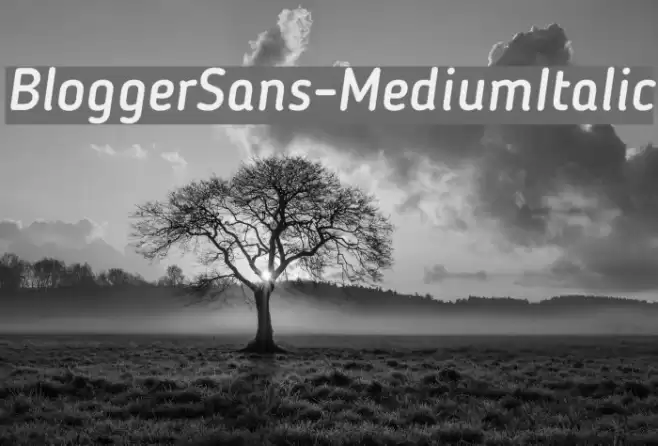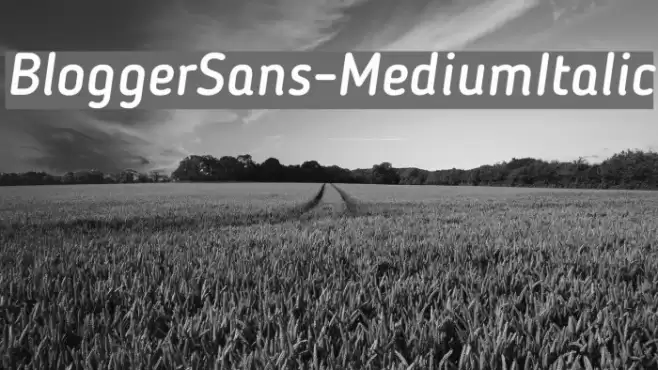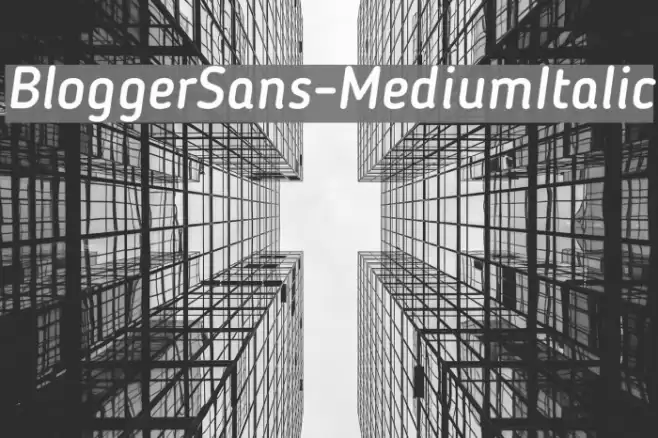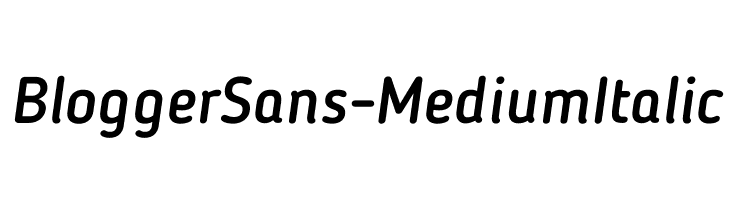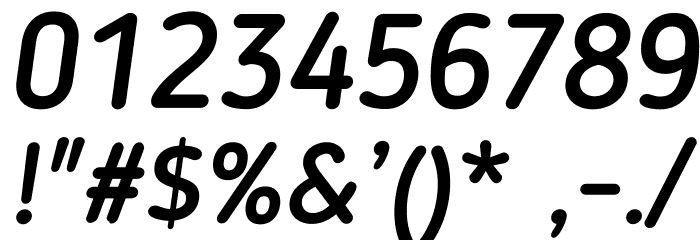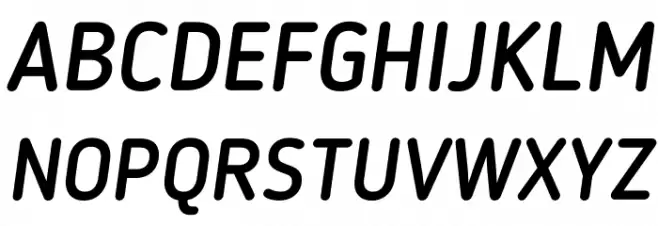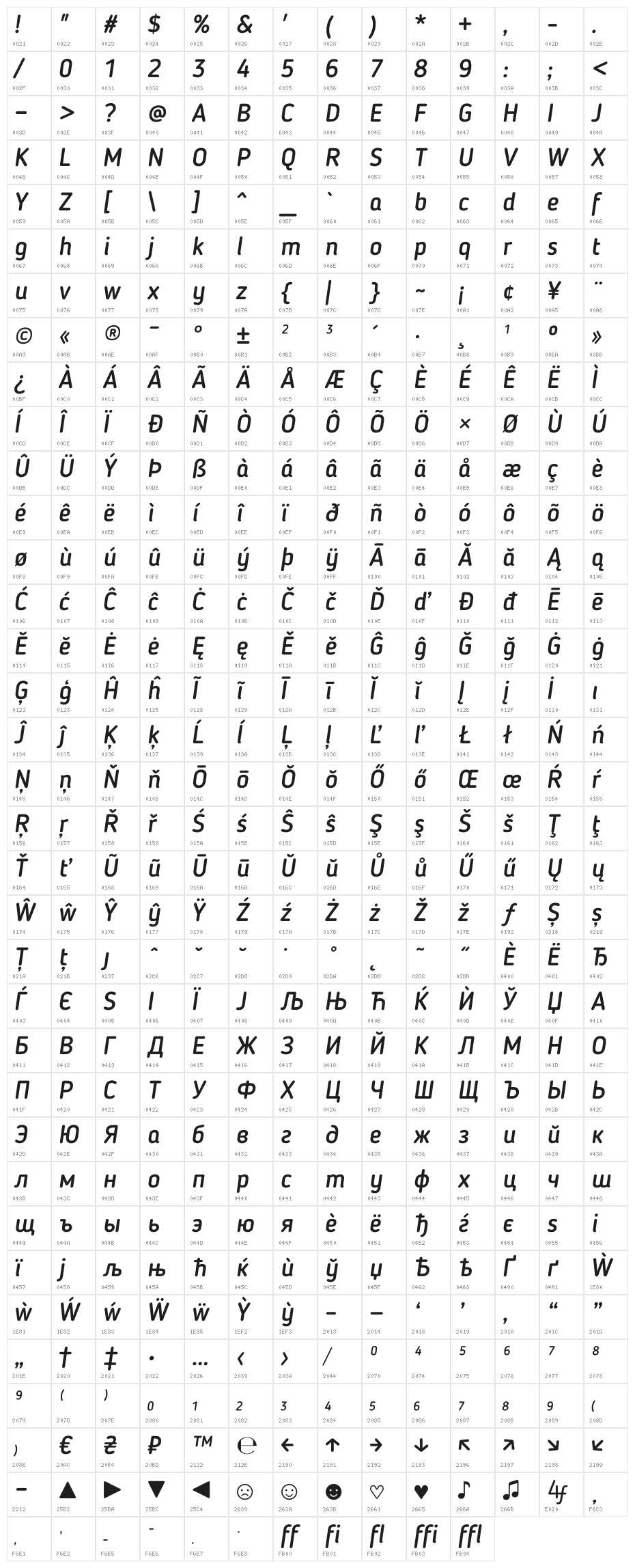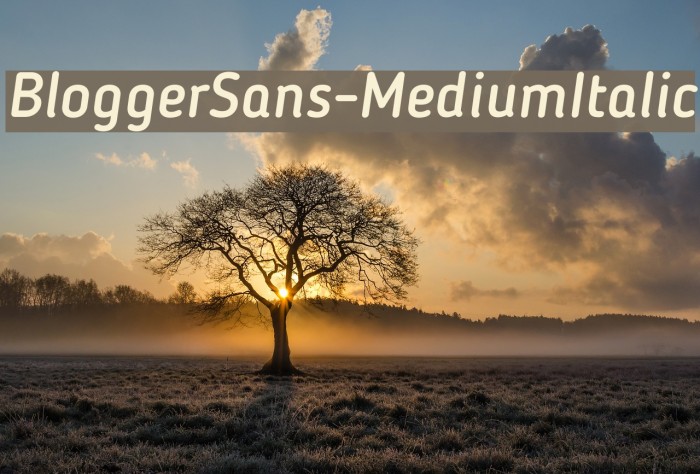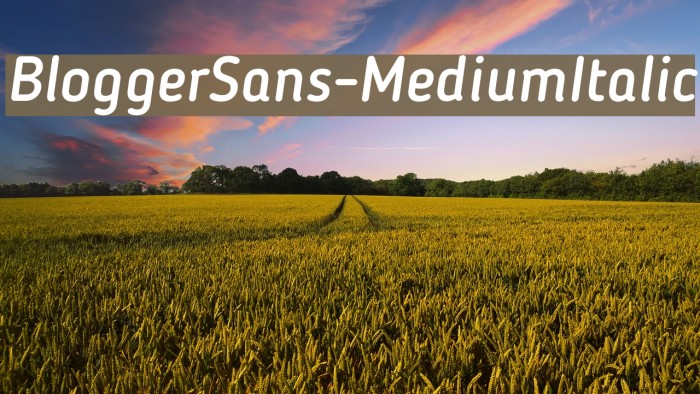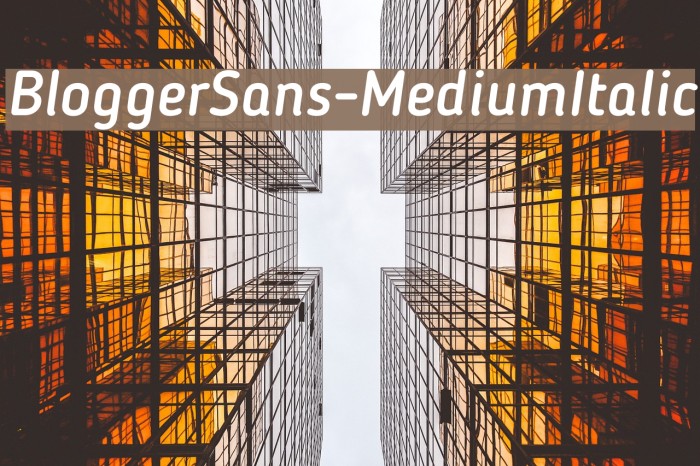
BloggerSans-MediumItalic Font
BloggerSans-MediumItalic Description
This typeface features a clean and modern sans-serif design with a slight italic slant, giving it a dynamic and contemporary feel. The characters are well-proportioned with a medium weight, providing a balanced appearance that is both readable and stylish. The rounded edges of the letters add a friendly and approachable touch, making it suitable for a variety of design projects. The numerals and special characters maintain the same aesthetic, ensuring consistency throughout. This font is versatile, making it ideal for both digital and print media.
A modern, medium-weight sans-serif font with a slight italic slant and rounded edges from Uncategorized fonts.
- Proposed Projects: Ideal for web design, branding, advertising, and editorial layouts.